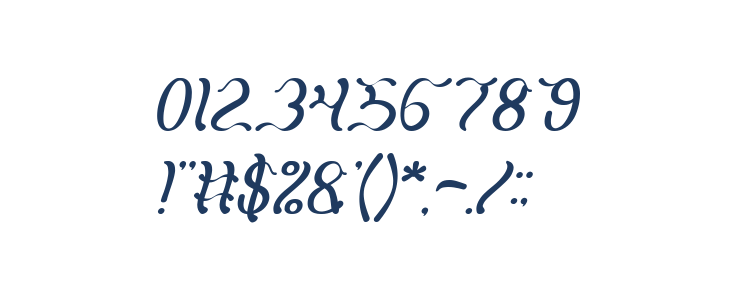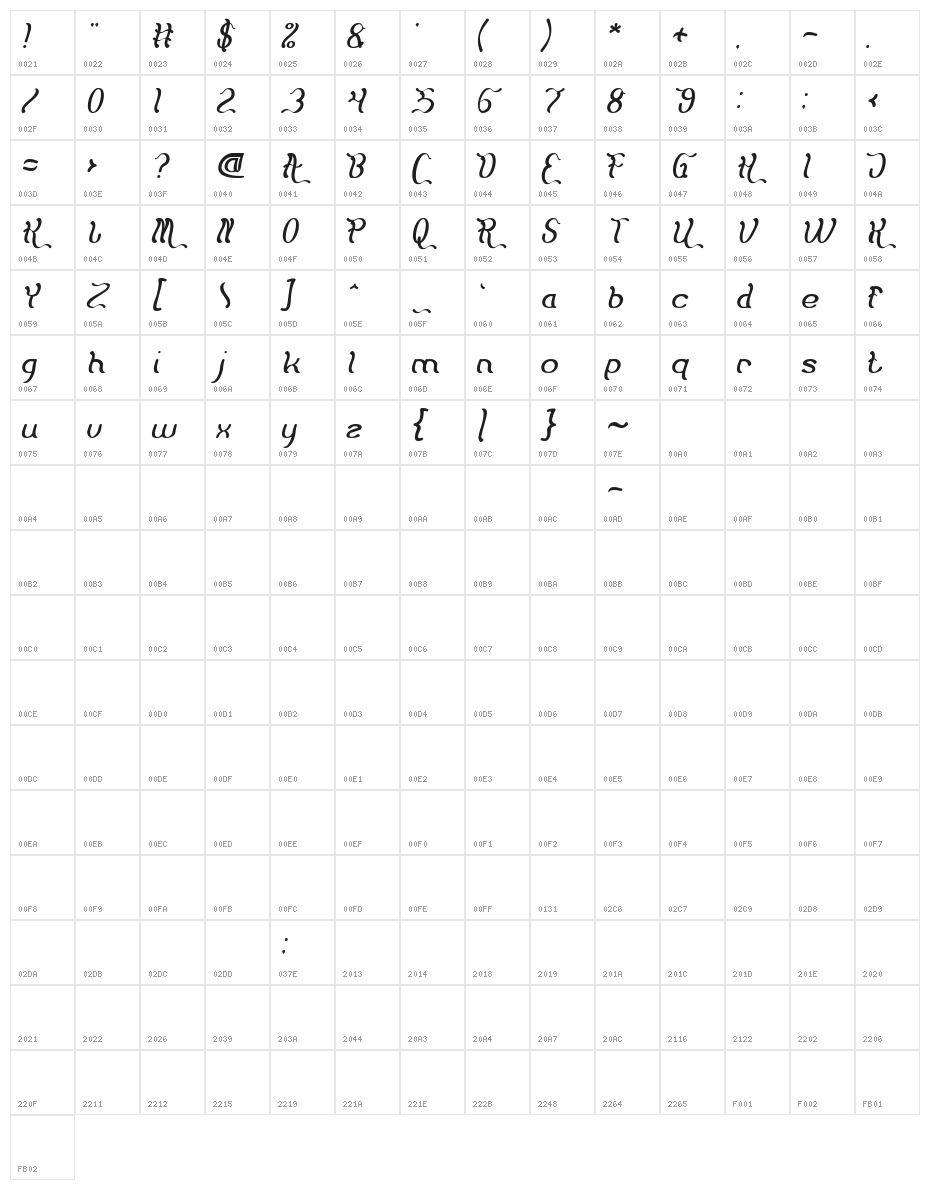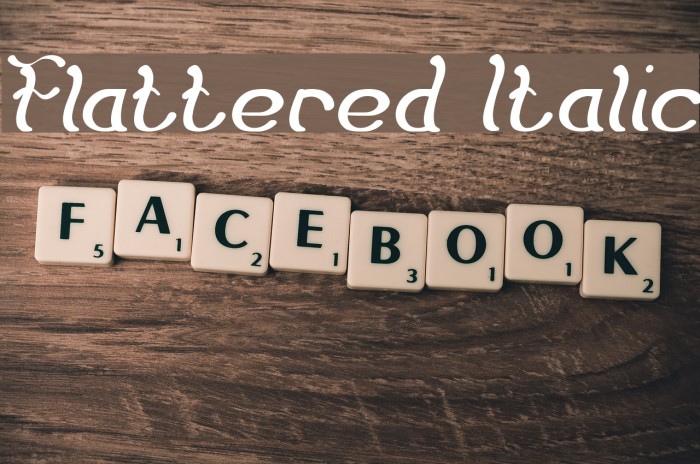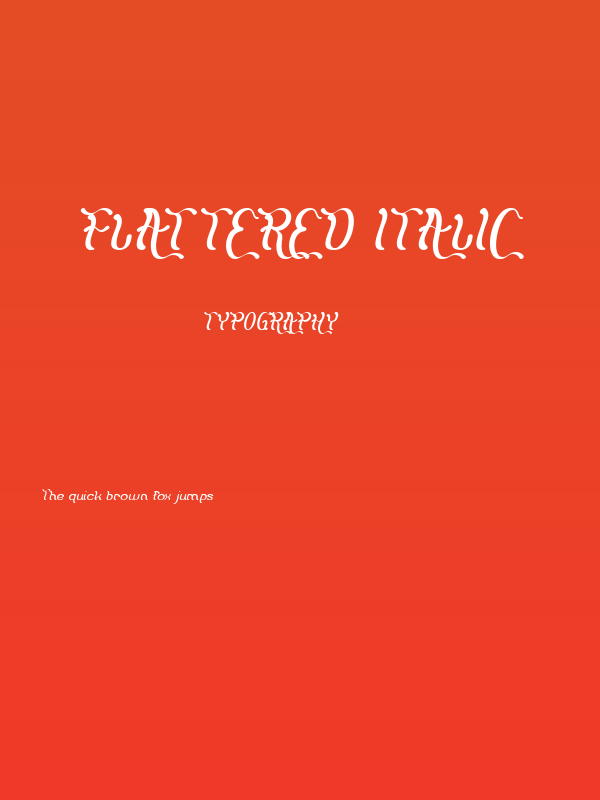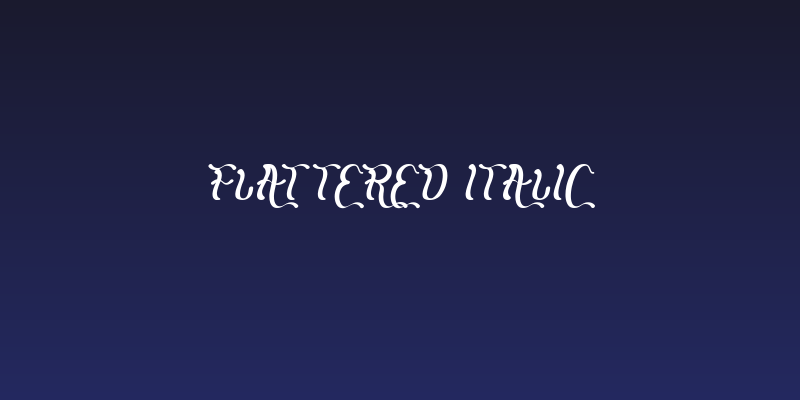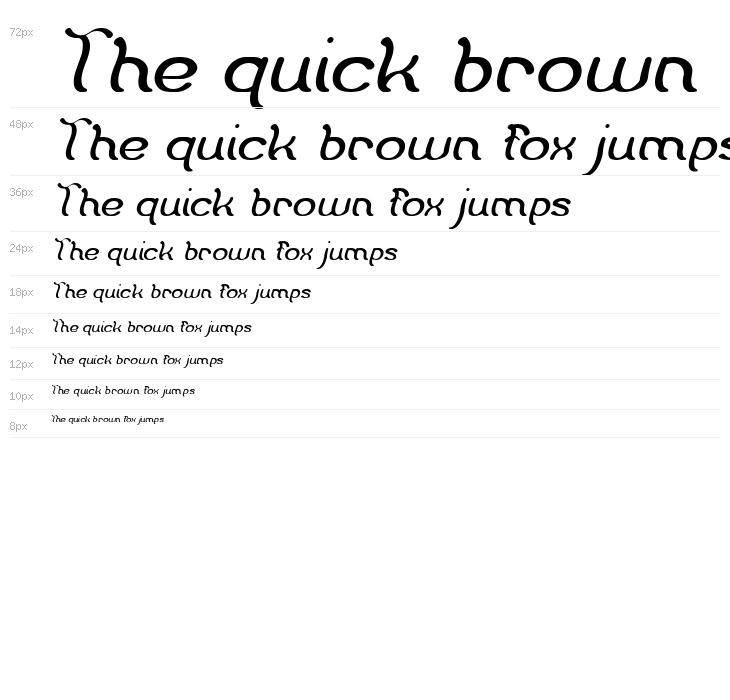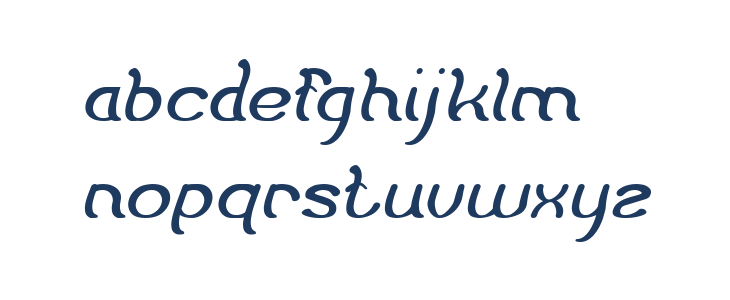
Flattered Italic Font
Flattered Italic Description
This font features a unique and artistic design with a flowing, cursive style. The letters are characterized by elegant curves and swirls, giving it a whimsical and decorative appearance. The uppercase letters have distinctive flourishes, while the lowercase letters maintain a consistent, smooth flow. The numerals and special characters are equally stylized, complementing the overall aesthetic. This font's playful yet sophisticated look makes it suitable for creative projects that require a touch of elegance and flair.
| Use Case | Logos, Invitations, Artistic Designs |
| Proposed Projects | Ideal for wedding invitations, greeting cards, branding, and artistic posters. |